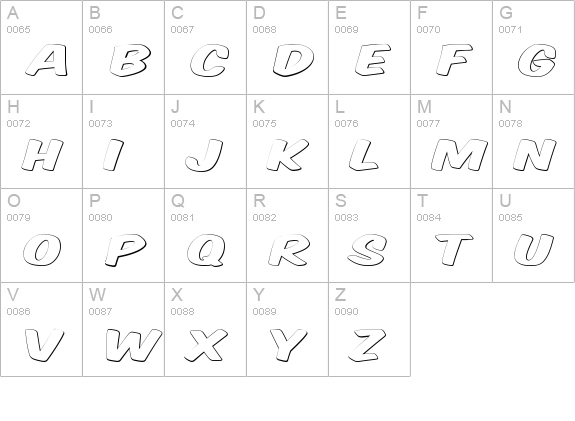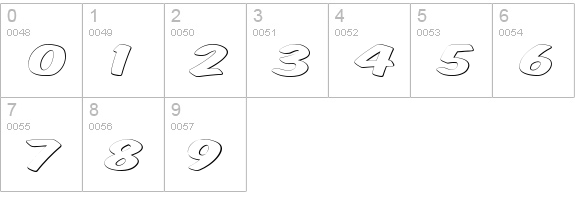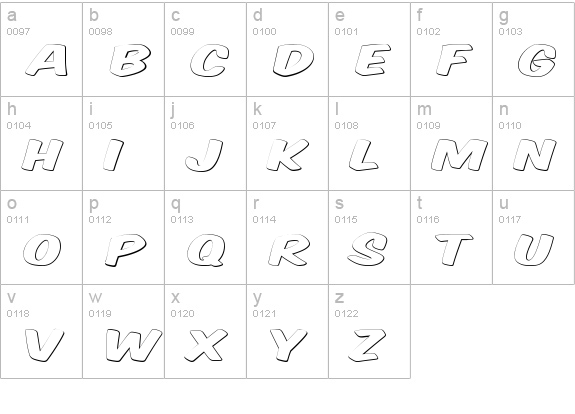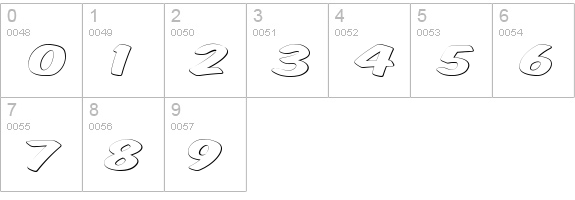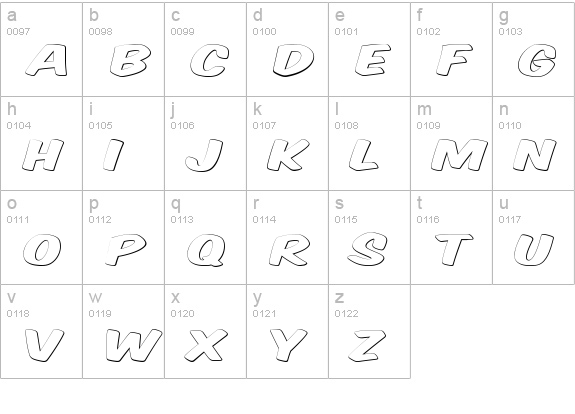
Komika Title - Ghost Font Details
Komika Title - Ghost font is a hauntingly beautiful typeface that exudes an air of mystery and intrigue. Its unique design features ghostly outlines and ethereal characters that are sure to captivate and enchant viewers. This font is perfect for creating spooky or otherworldly designs that need a touch of the supernatural. Best of all, Komika Title - Ghost font is completely free to download at FontsMarket.com. Whether you're working on a Halloween project, a ghost story book cover, or simply want to add a touch of the paranormal to your designs, this font is the perfect choice. Don't miss out on the opportunity to add this mesmerizing font to your collection today!